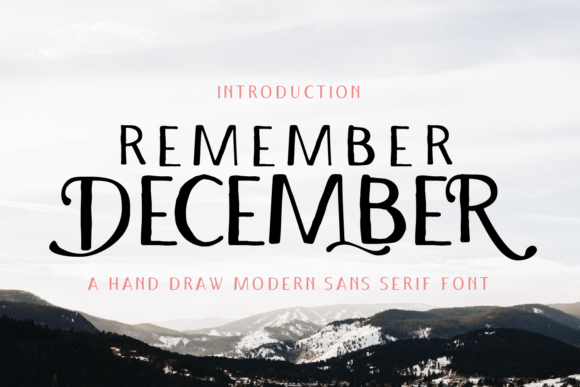
Embark on an unforgettable typographic journey with Remember December – a display font that evokes the timeless elegance of handwritten notes. Its captivating curves and graceful strokes will enchant you with their authenticity and charm.
Crafted by the renowned type designer Nico Muslib, Remember December is not just a font; it's an expression of creativity and passion. Its natural flow and organic texture will add a touch of class to your designs, making them stand out from the crowd.
Whether you're a seasoned designer or just starting, Remember December is the perfect font for a wide range of projects. Its versatility knows no bounds, from logos and wedding invitations to headings, t-shirts, and posters. Its timeless appeal will elevate your designs and leave a lasting impression on your audience.
At Remember December, we understand the importance of individuality and self-expression. That's why we've carefully crafted this font to be as versatile as possible. Its subtle imperfections and handwritten style make it the ideal choice for those seeking a font that truly reflects their unique personality.
Join the growing community of designers who have discovered the magic of Remember December. Transform your creative visions into reality with this captivating display font. Let your words dance with elegance and charm, and create designs that resonate with your audience on a deeper level.